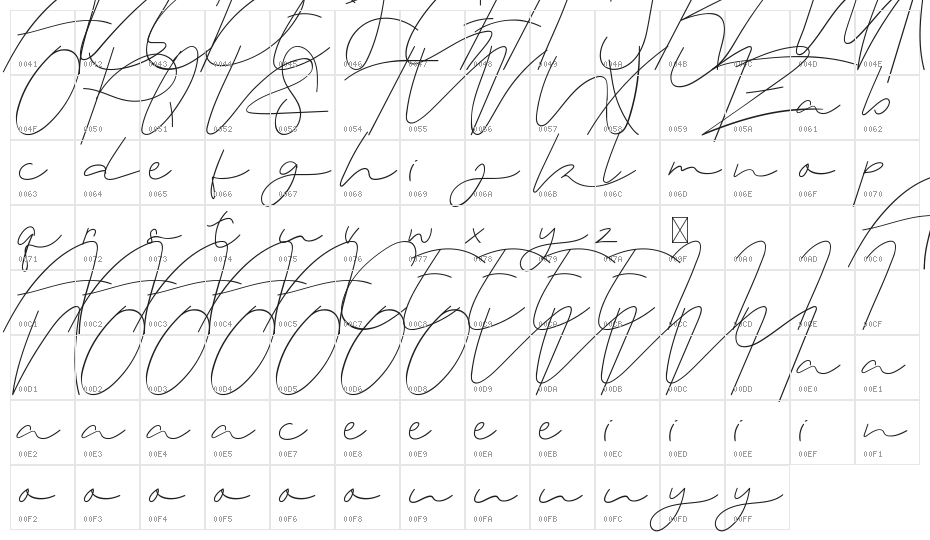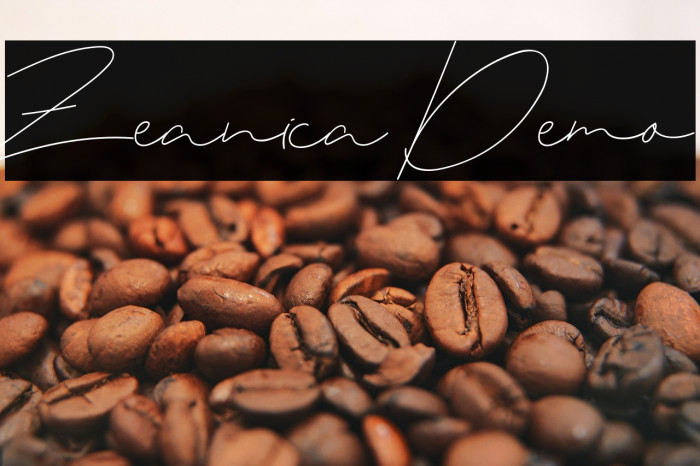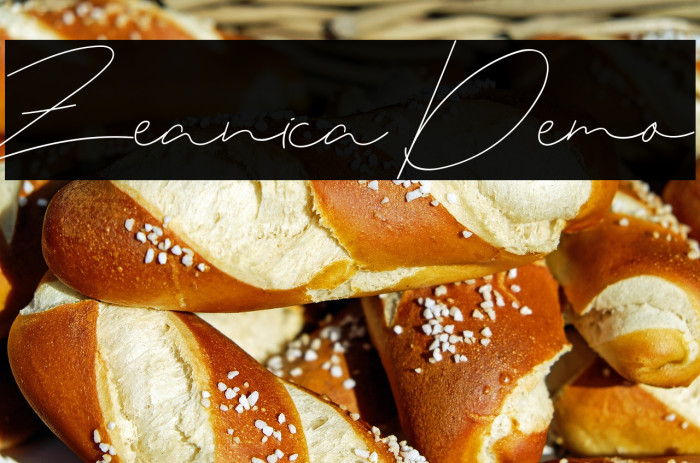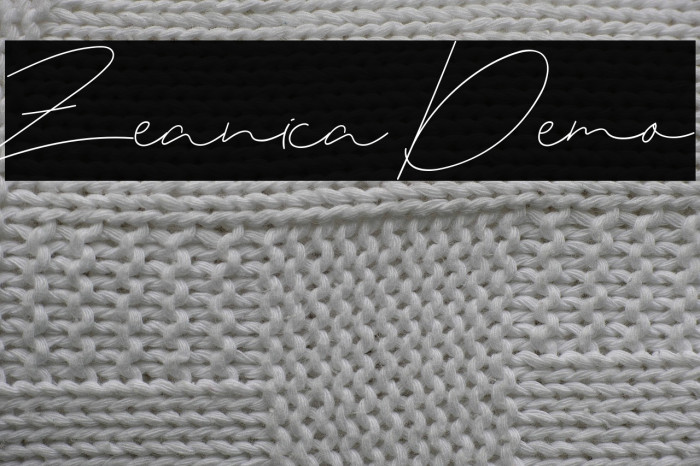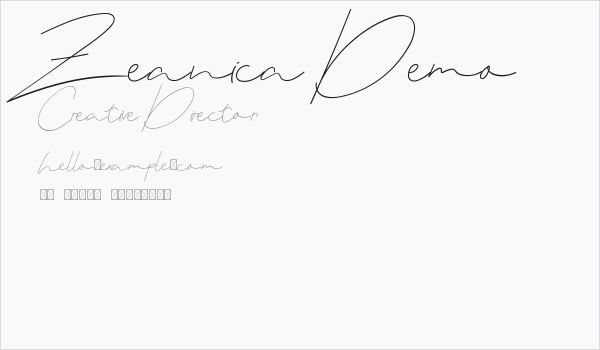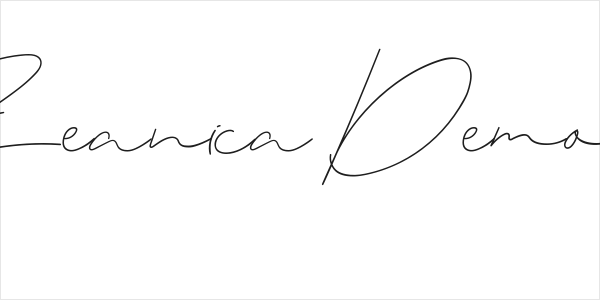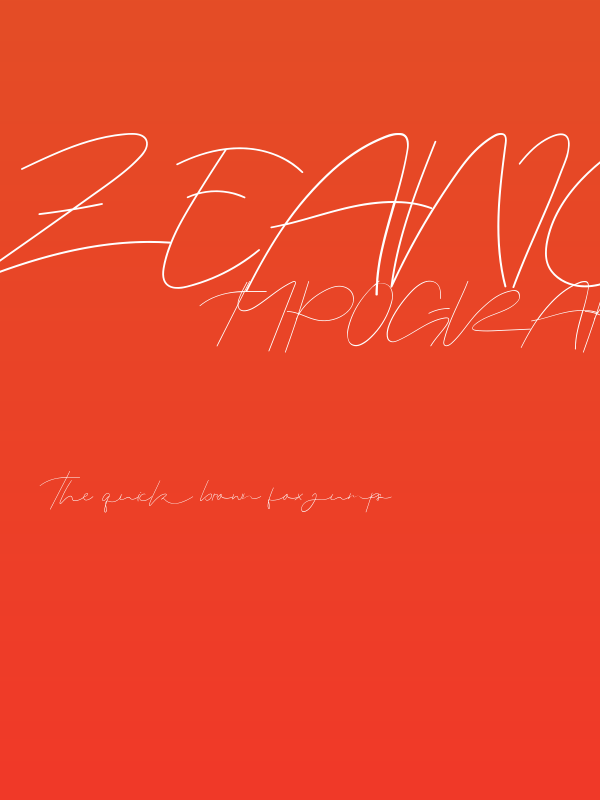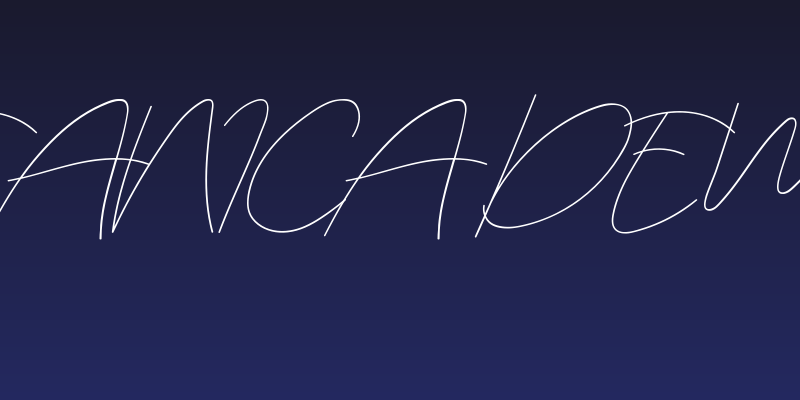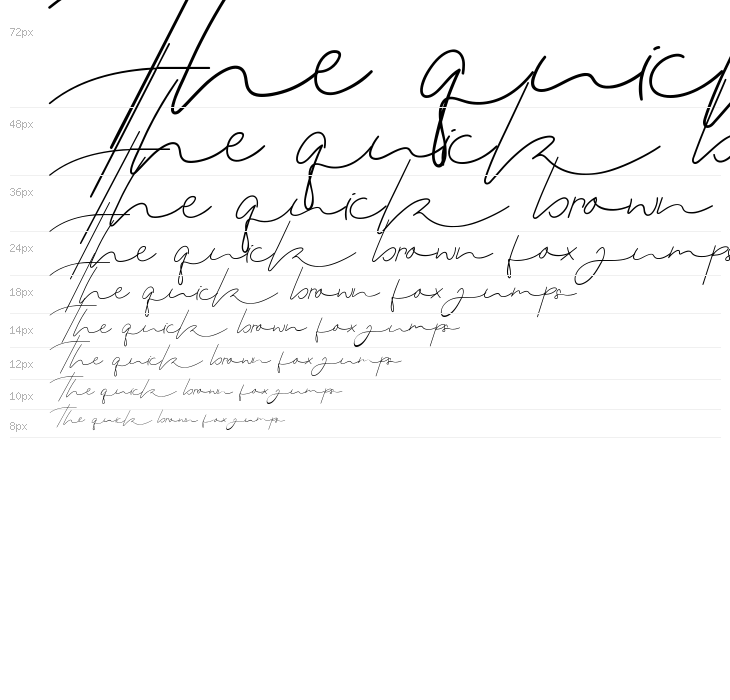
Zeanica Demo Font
Zeanica Demo Description
This font features a delicate, flowing script style that mimics elegant handwriting. The characters are connected in a fluid manner, giving it a natural and organic feel. The strokes are thin and consistent, creating a light and airy appearance. The uppercase letters are slightly more elaborate, with extended loops and curves, while the lowercase letters maintain a more straightforward and cohesive look. This font exudes a sense of sophistication and grace, making it ideal for projects that require a personal touch.
| Overall Style | Elegant, Handwritten |
| Proposed Projects | Ideal for wedding invitations, personal branding, greeting cards, and elegant stationery. |